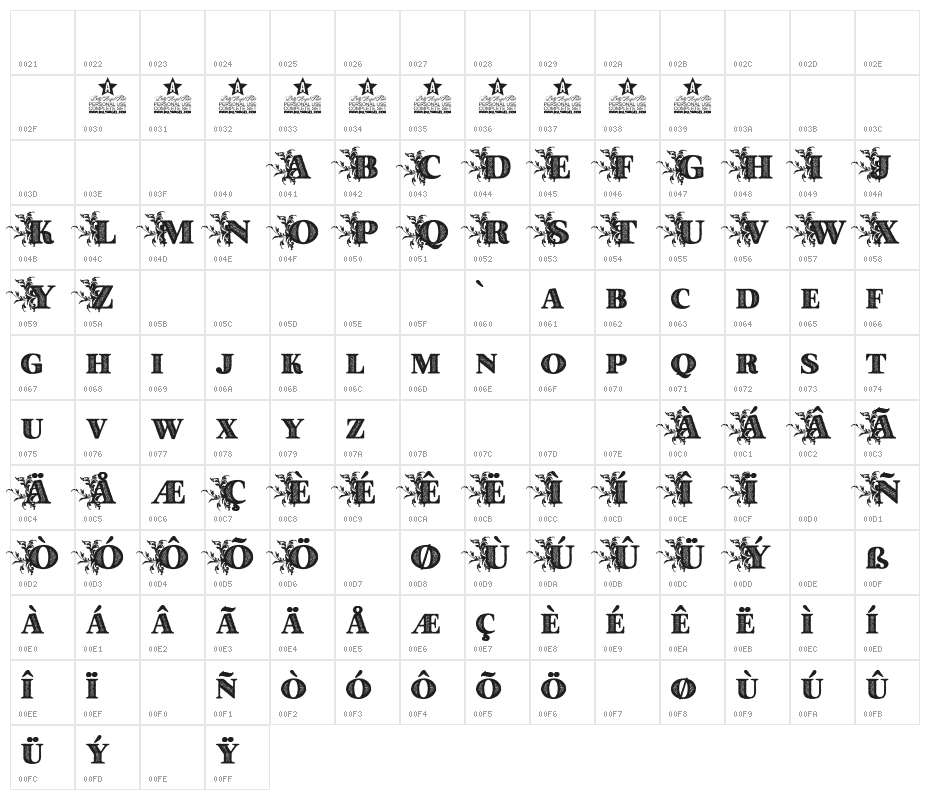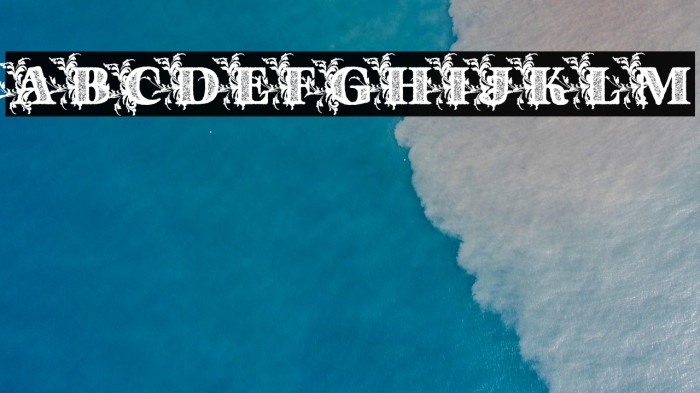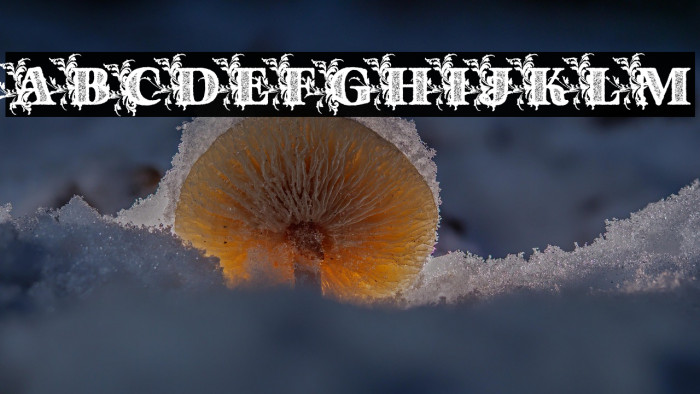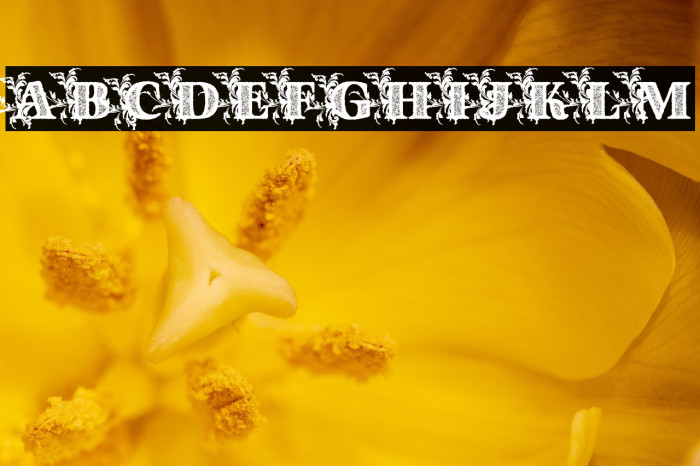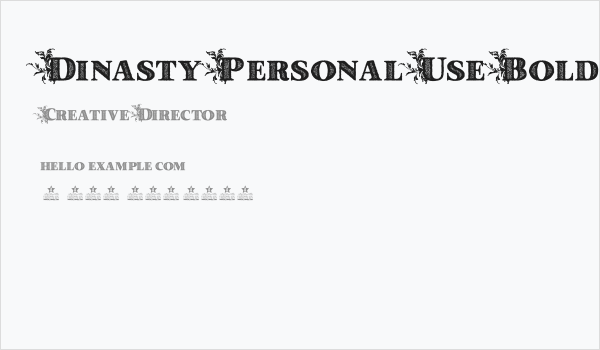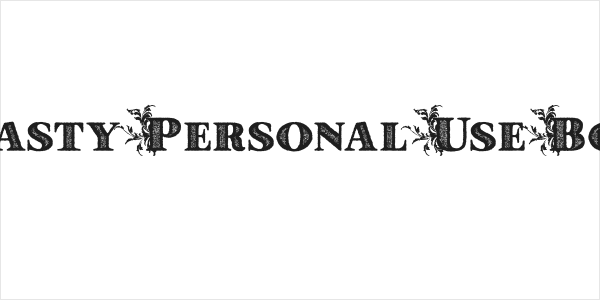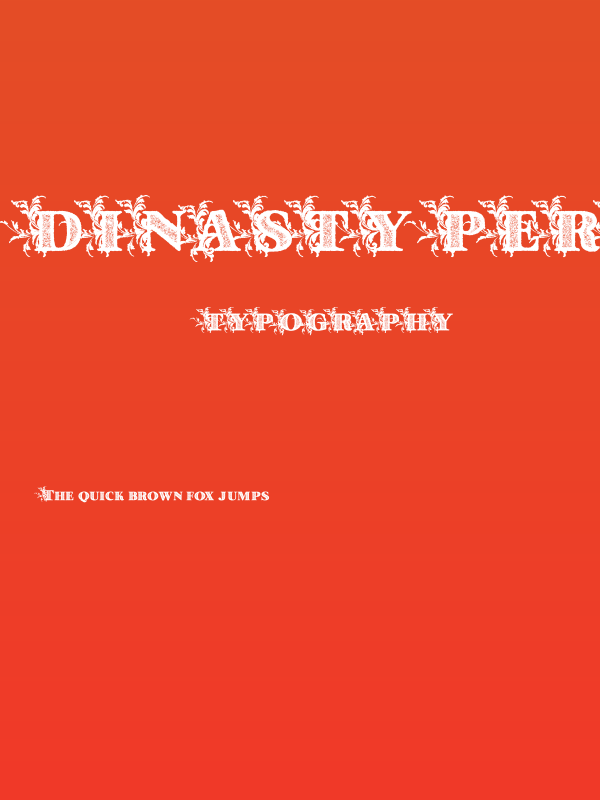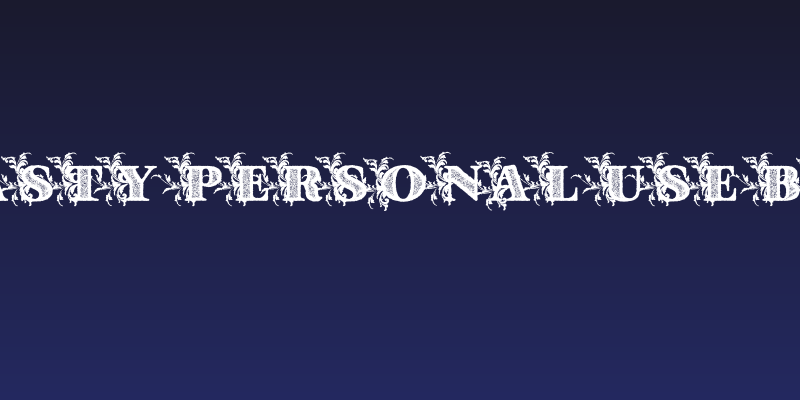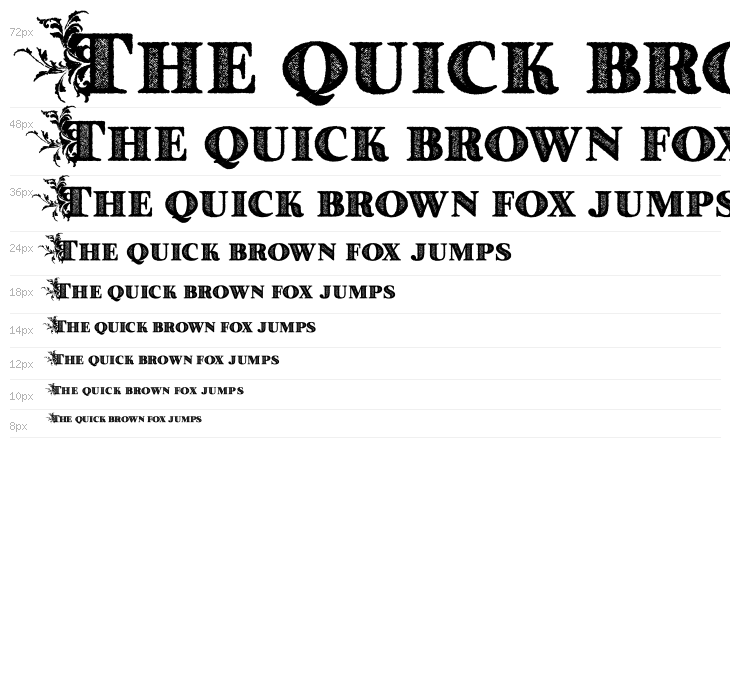
Dinasty Personal Use Bold Font
Dinasty Personal Use Bold Description
This font features a bold and decorative style with intricate flourishes and embellishments that give it a regal and ornate appearance. The uppercase letters are adorned with elaborate designs, making it highly suitable for projects that require a touch of elegance and sophistication. The font's bold weight ensures strong visibility, while the decorative elements add a unique flair. It is ideal for creating eye-catching headlines, invitations, or branding materials that need to stand out. The font's intricate details may not be suitable for small text or body copy, but it excels in larger formats where its artistic qualities can be fully appreciated.
| Proposed Projects | Ideal for wedding invitations, luxury branding, event posters, and decorative headlines. |